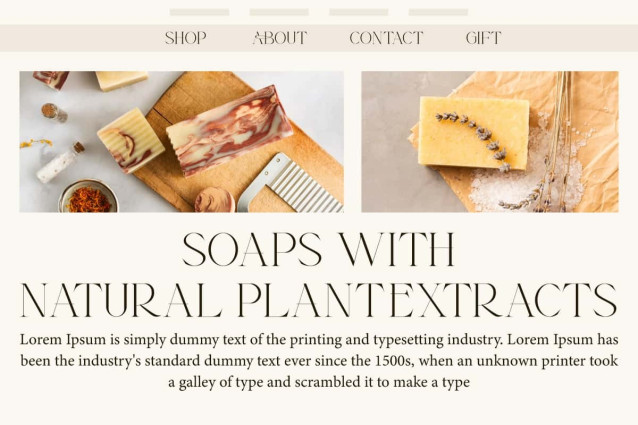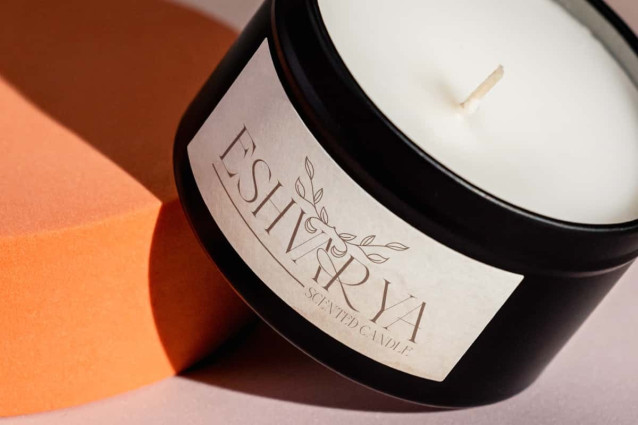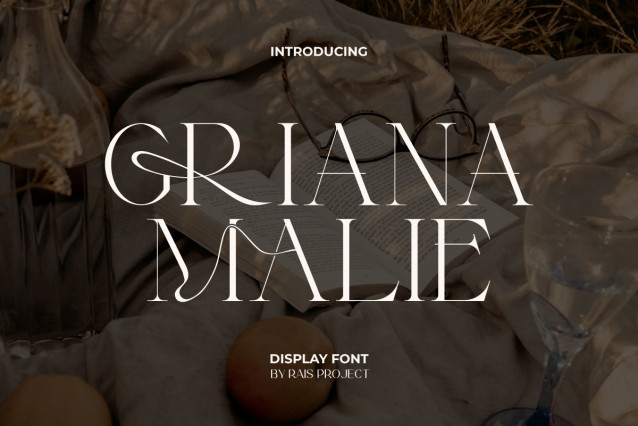
Griana Malie Font
Griana Malie Font is a modern style serif display font, created by RaisProject. This font has a unique character so it can add an attractive aesthetic to your design. It will look good on invitation, stationery, poster, custom design, product packaging, quotes, signage, brand image, advertisement, label, marketing material, website page, and more!
Griana Malie Font includes a full set of ALL CAPS for Uppercase and Lowercase Letters, Numerals, and large range of Punctuation. The Ligature character of this font will give extra beauty and suitable for various industries, such as fashion, jewelry, cafe, event or wedding organizer, photography, printing, publishing, etc.